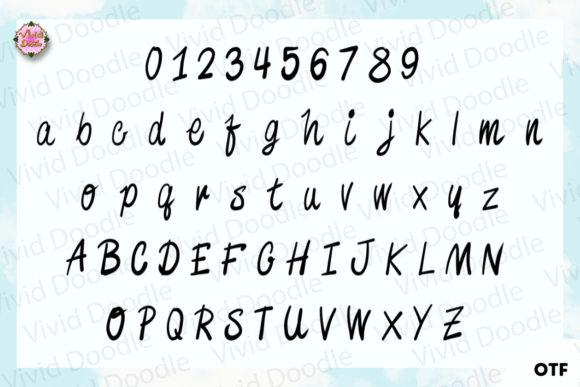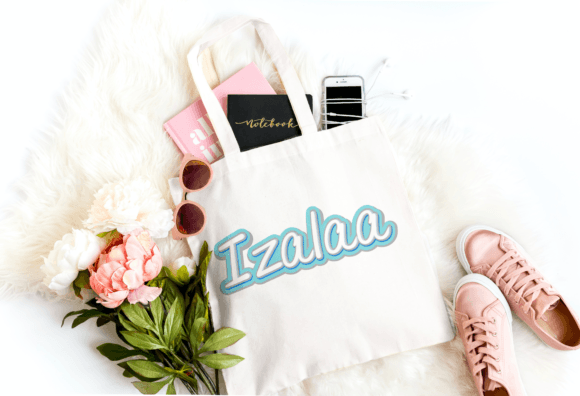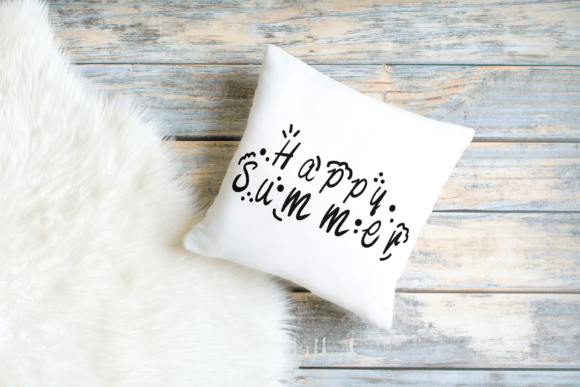
Introduction to Izalaa Font
As you sit at your desk, surrounded by scattered papers, glittering ornaments, and half-finished designs, you can’t help but feel the excitement building up. It’s that time of the year when creativity knows no bounds, and your imagination runs wild with the endless possibilities of the holiday season. And what better way to capture this festive spirit than with a font that embodies the joy and magic of the season?
Enter the Izalaa Font, a hand-lettered masterpiece crafted specifically to bring your holiday projects to life. With its enchanting design and high-quality aesthetic, this exclusive font is the perfect addition to any creative endeavor. Whether you’re designing greeting cards, social media graphics, or even crafting a festive website, the Izalaa Font is sure to elevate your work to new heights.
Key Features of Izalaa Font
- High-quality design: Izalaa Font is a unique and creative project ideal for designers seeking a distinctive typography for their work.
- Transparent background: This feature makes Izalaa Font versatile for use on various backgrounds, ensuring seamless integration into any design.
- Perfect for digital design: Izalaa Font is an excellent choice for digital design projects, including web design, mobile apps, and graphic design.
Honest Review: Izalaa Font
I recently had the chance to work with the Izalaa Font, and I must say it’s been a great addition to my design arsenal. The font’s unique aesthetic ✨ makes it perfect for creative projects that require a touch of elegance.
- What works well:
- High-quality design that’s perfect for modern design projects.
- Transparent background, allowing for seamless integration with any background image.
However, I did encounter some limitations ⚠️ with the Izalaa Font. The font can be a bit too ornate for some designs, making it difficult to read at smaller font sizes.
Overall, I’m impressed with the Izalaa Font. Its unique design and high-quality construction make it an excellent choice for creative projects. While it may have some limitations, I believe the benefits far outweigh the drawbacks. I’d definitely recommend it to designers looking for a high-quality, free design resource.
Tips for Getting the Most Out of Izalaa Font
Experiment with different font sizes, colors, and styles to add visual interest to your design. Use the font with a transparent background to create a more modern look.
The Izalaa Font is ideal for a variety of creative projects, including logos, business cards, and social media graphics. Its high-quality design and transparent background make it a versatile resource for designers.